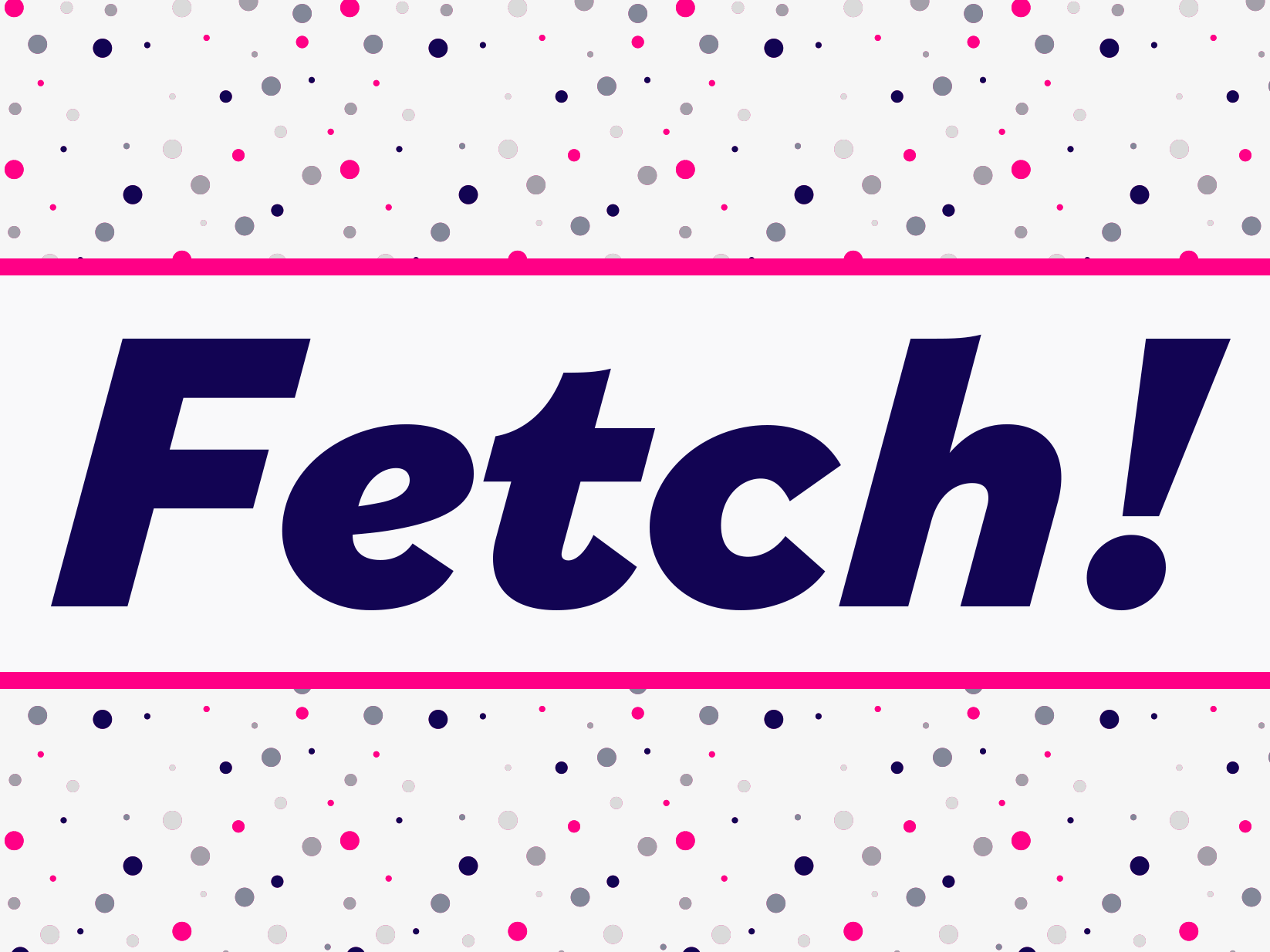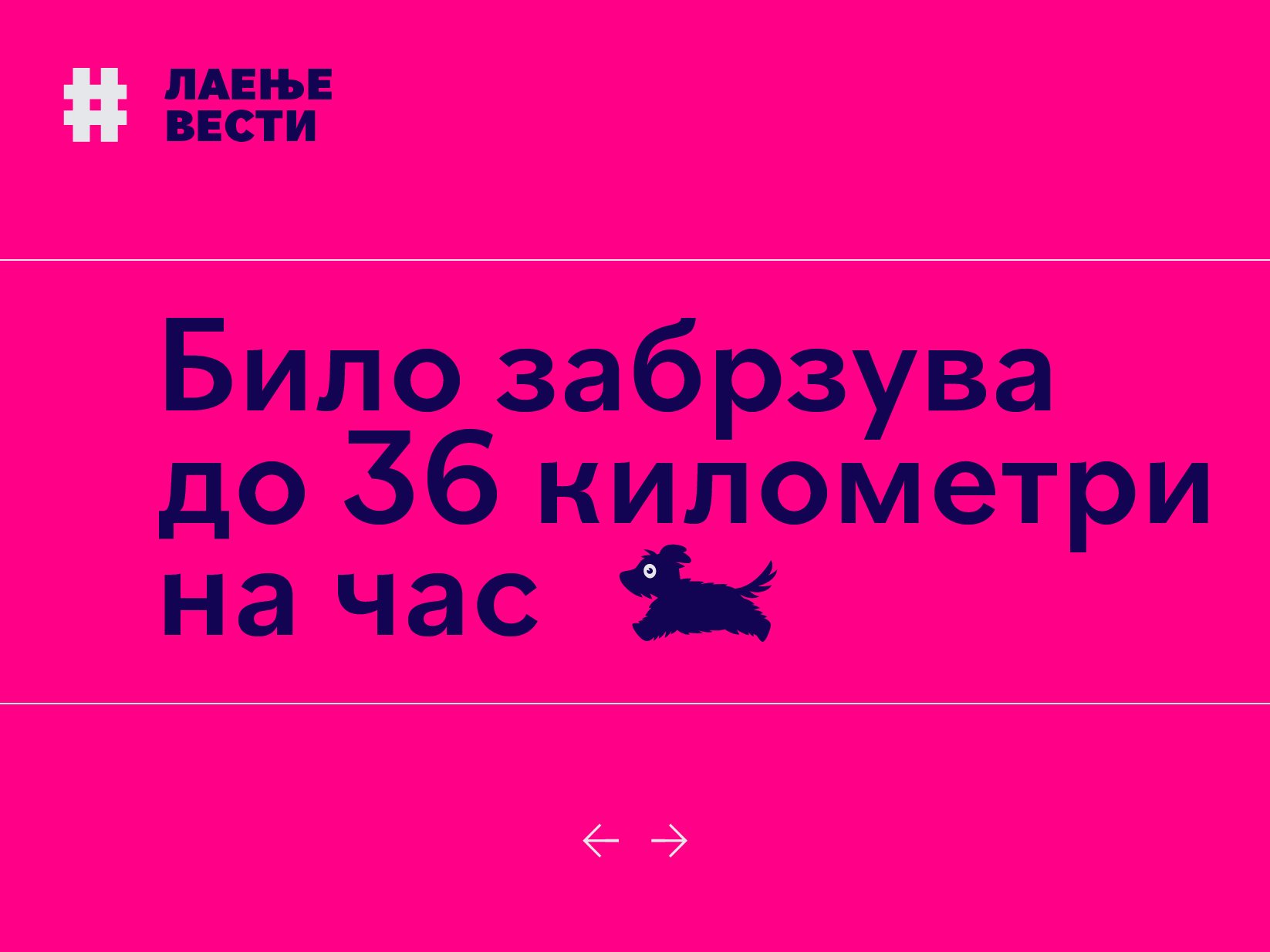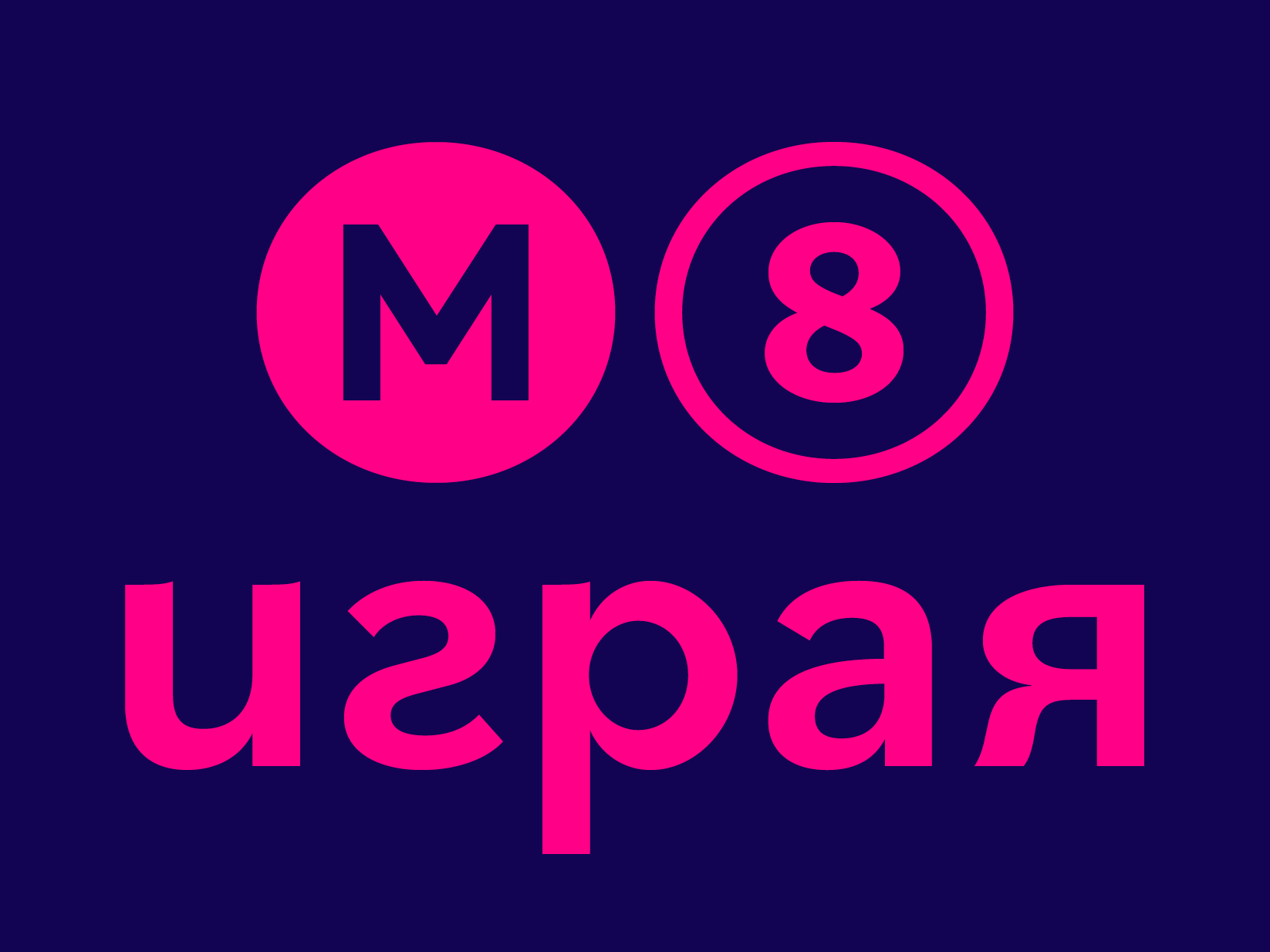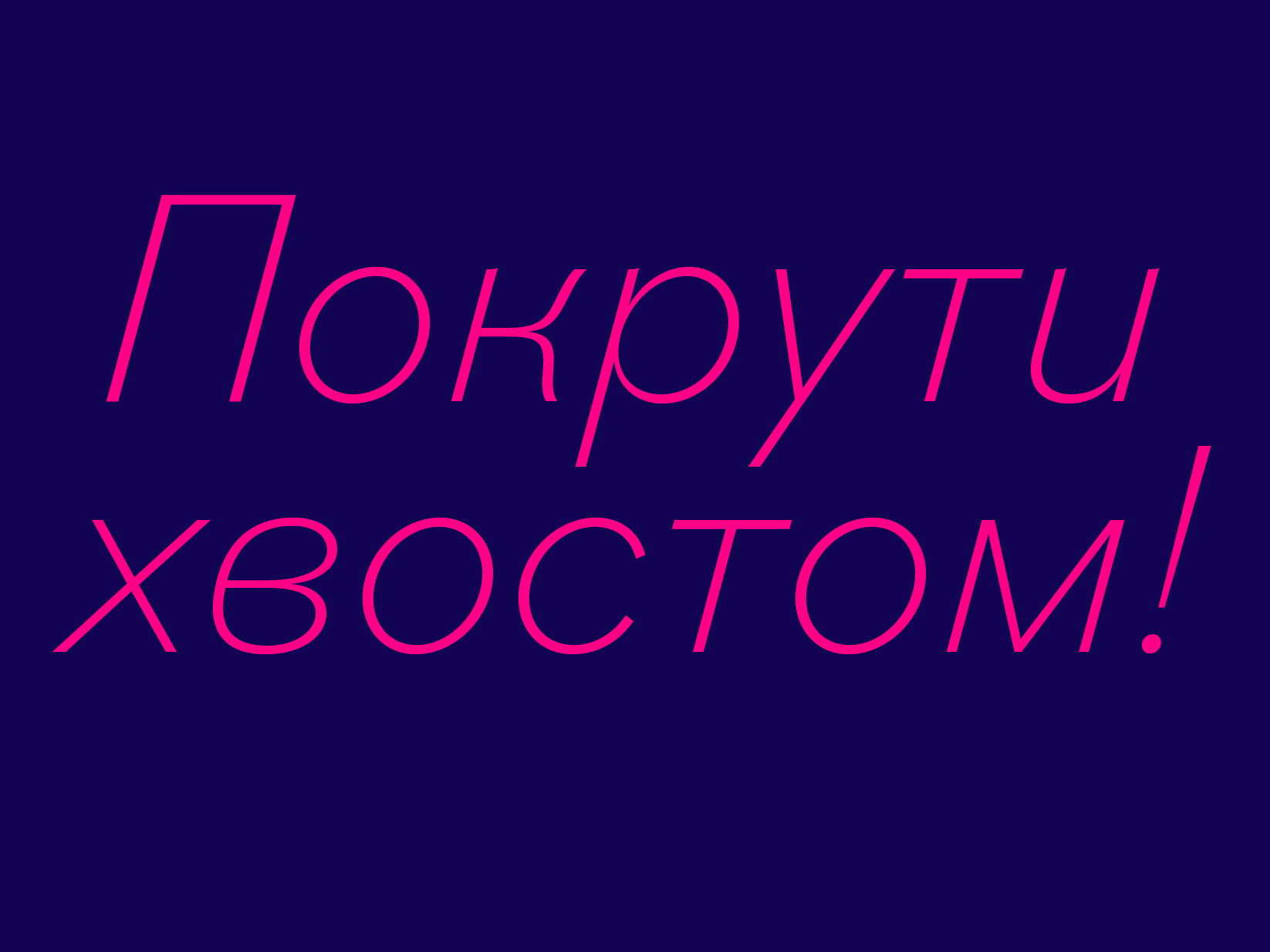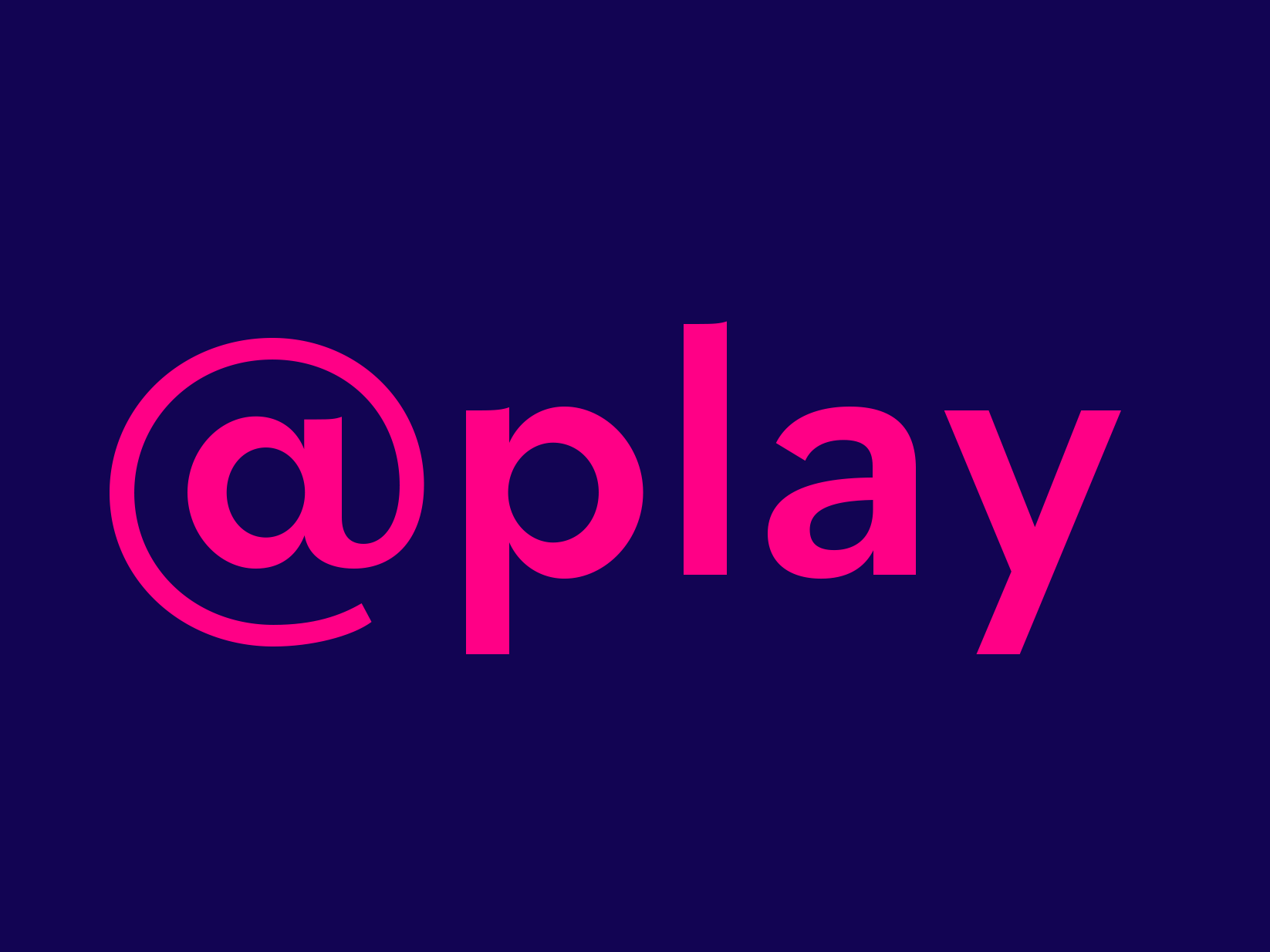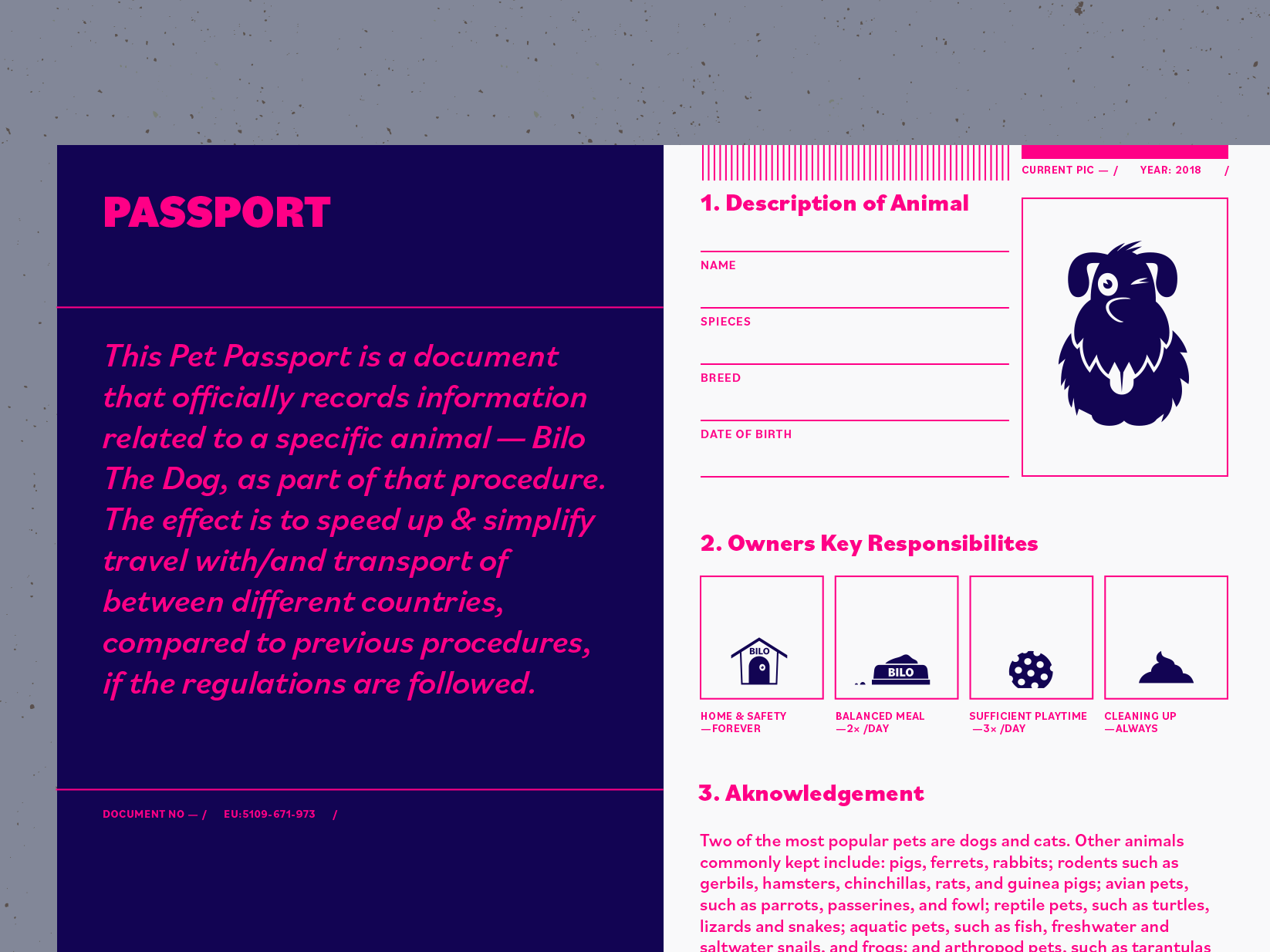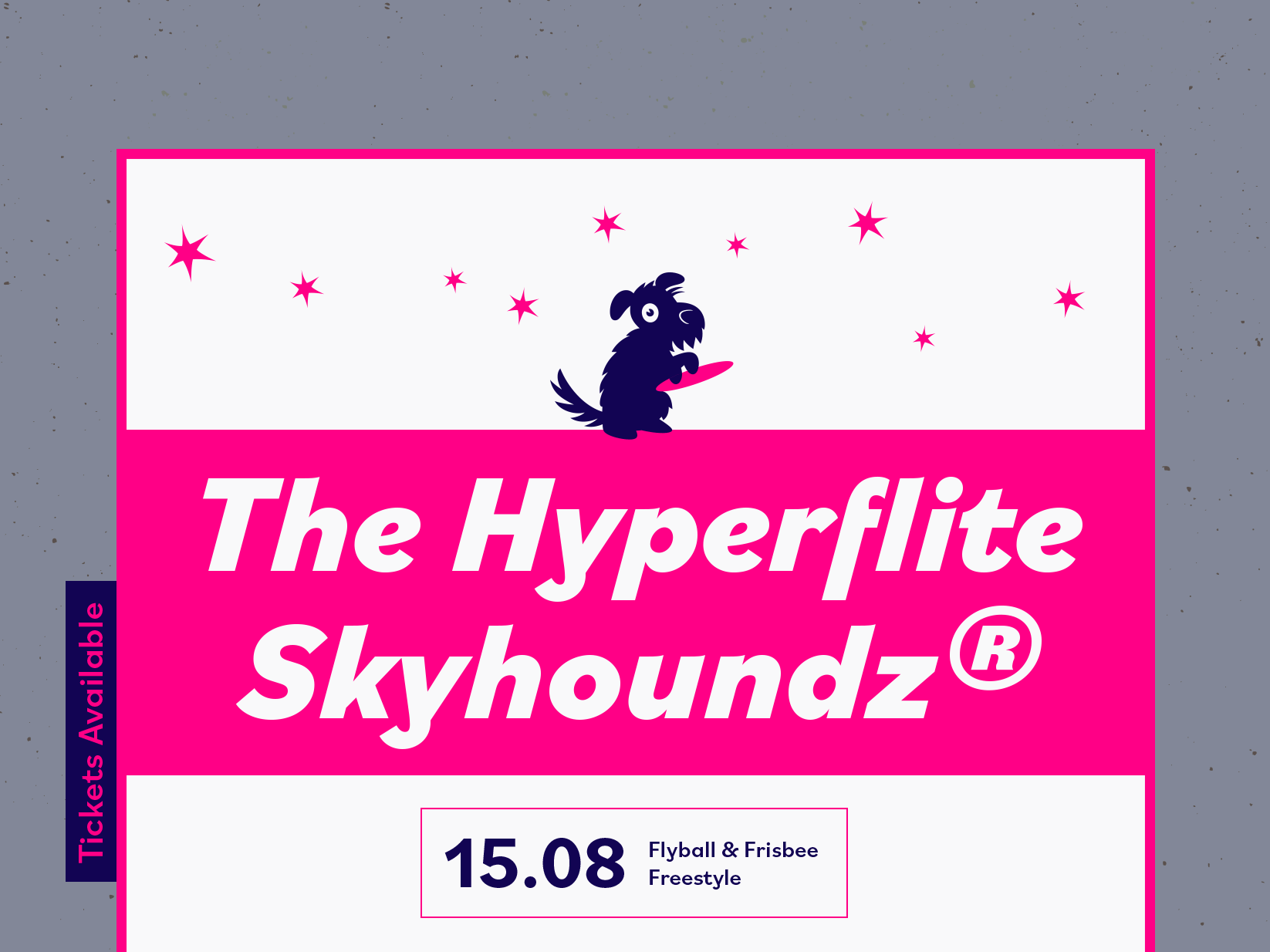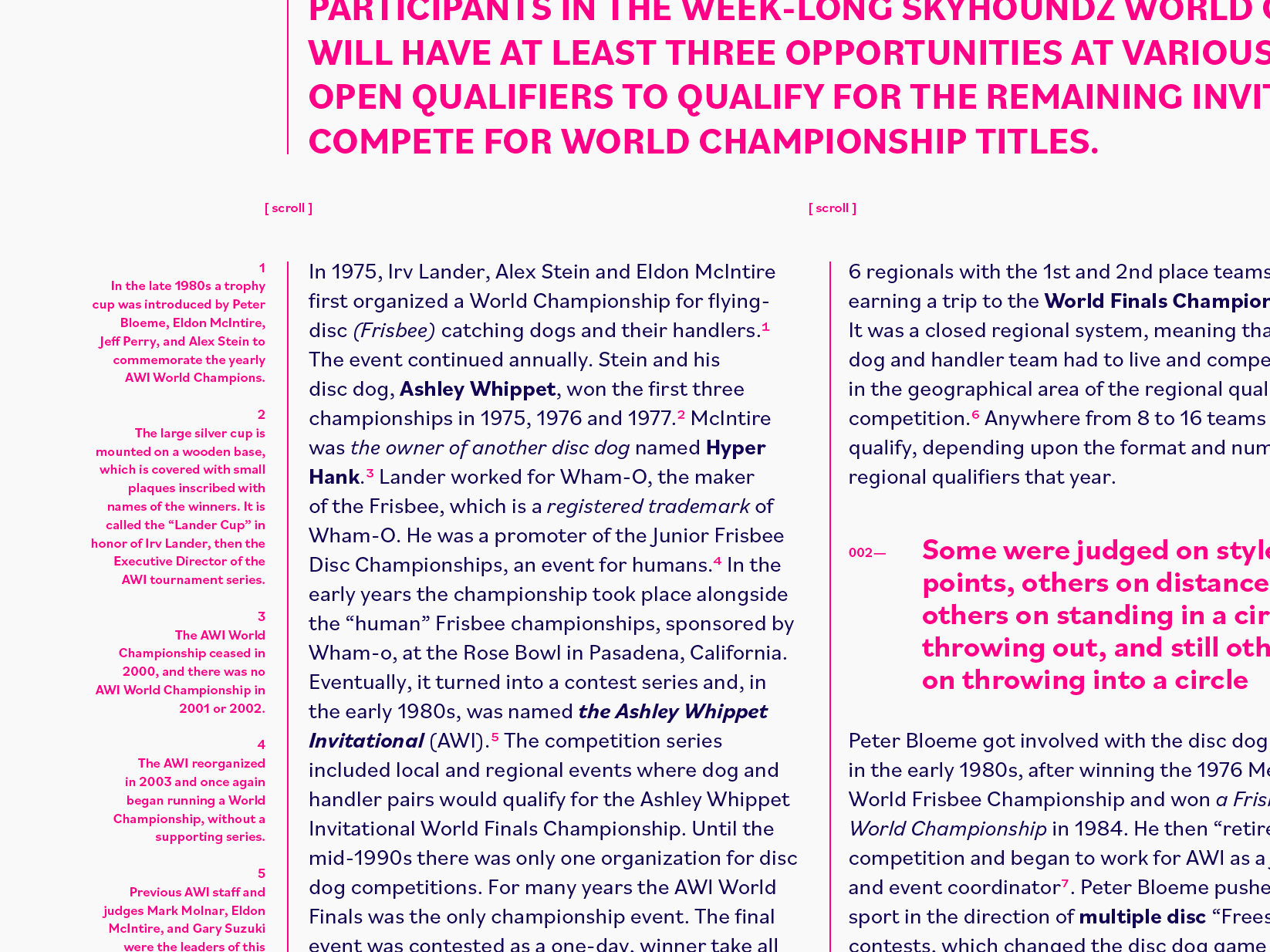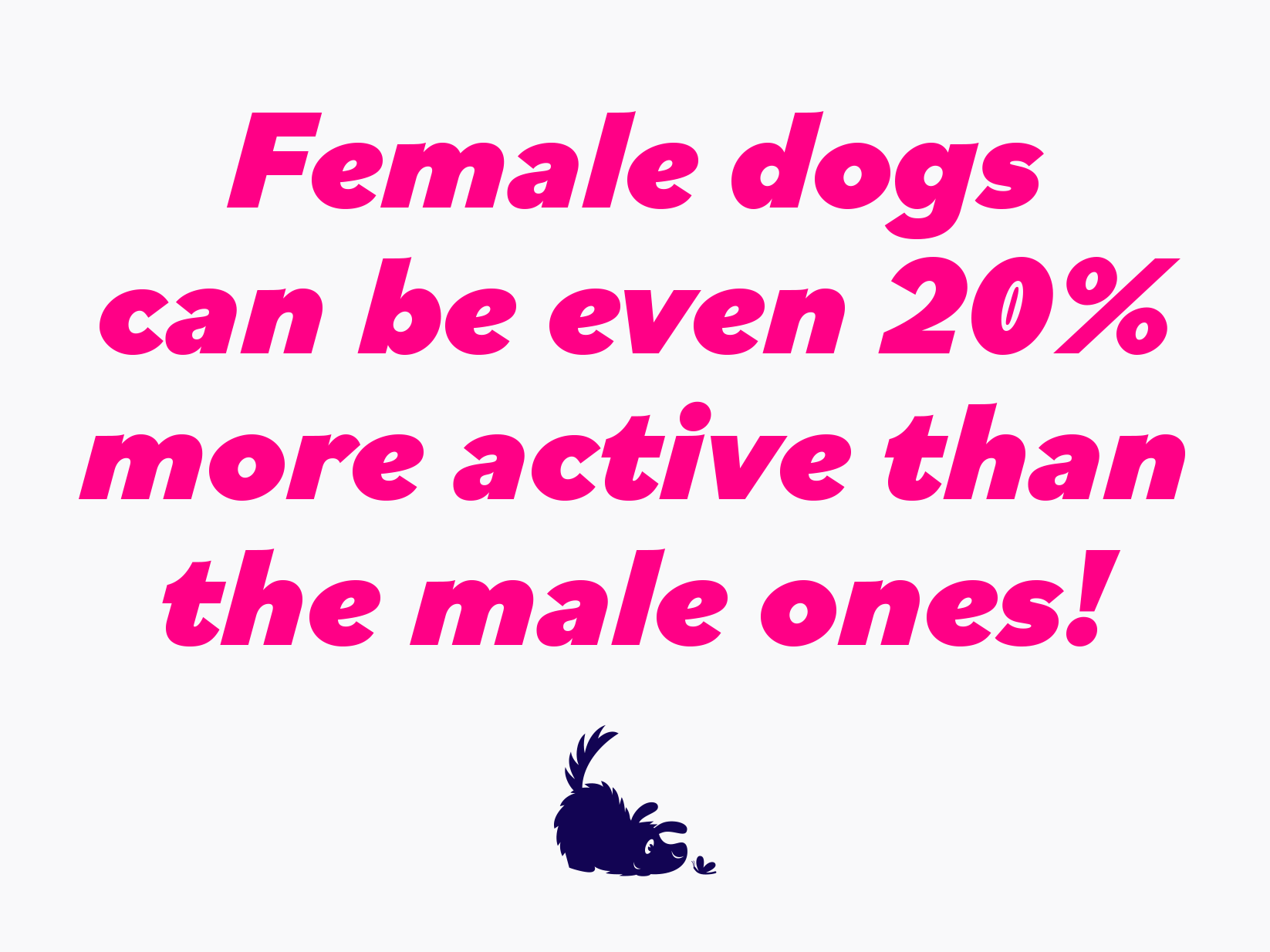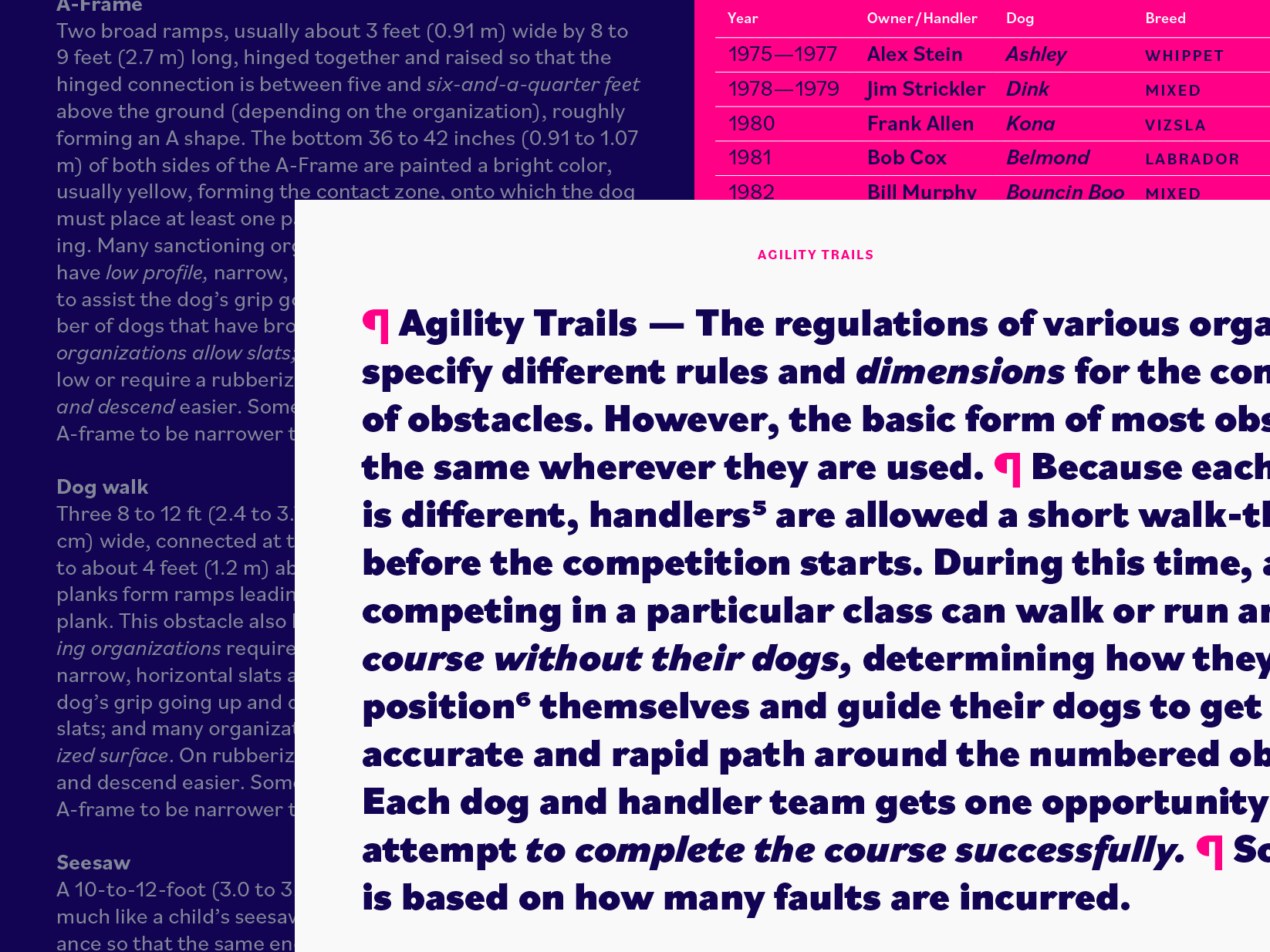
Bilo
Bilo is a grotesque in the literal sense of the term, some may say. Pieter van Rosmalen challenges many of the common design practices that aim for smooth curves and harmoniously progressing rounds. The ‘o’ or ‘e’ in the bolder styles, for instance, are not circular but rather oblong, egg-shaped ovals. In lighter styles, the sharp curves are also visible at the top and bottom of round characters giving Bilo an unusual and charming feel.
Van Rosmalen started exploring shapes of this kind in 2014 in an attempt to design a low-contrast sans-serif version of Bodoni. Nothing really came off of this but the shape of the lowercase ‘o’ of Bodoni’s black weight stuck with him and inspired Bilo ExtraBold, the first weight he drew. Some other remaining hints of Bodoni are the slightly concave upper terminals of lowercase stems and the shape of the ‘n’ for instance. Bilo’s proportions progress from slender, classy light and regular styles to stubby, wider bolds and black – 9 weights in total with moderately low x-height. This weight range is complemented by unusually steep italics for a sans-serif, another reference to Bodoni-like typefaces. The extreme weights best shine in generous sizes – in print or on screen – while Light to Bold are also suitable for short copy. The uppercase characters stay rather compact which is great for texts with many capital letters or all-caps settings.
Some of Bilo’s signature characters, like ‘G’, ‘R’ or ‘a’, make it easy to recognize and unique. You can customize the design and dress things up or down by using one or several of the included alternate glyphs via OpenType features. For instance, there is an ‘a’ with a more conventional bowl, and a round, single-storey one which changes the flavour of the grotesque quite significantly in the direction of a geometric sans. Lowercase ‘f’ is also available with a shortened top curve and in a third form with a one-sided crossbar (analogously ‘t’ and ‘ß’). For ‘y’ you can choose a more English form with a hooked descender. Arrows, several sets of numerals and fractions round out the comprehensive character set, but the secret star of the family is Bilo the dog. The typeface is named after the pet of van Rosmalen’s sister – Bilo (pronounced bee-low) – and each style includes 18 different dog-related icons designed by Dirk Uhlenbrock. Go find ’em!